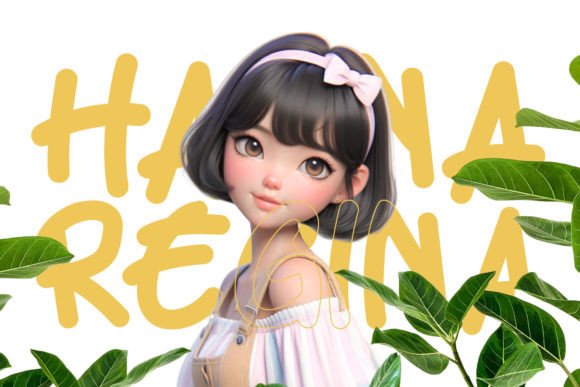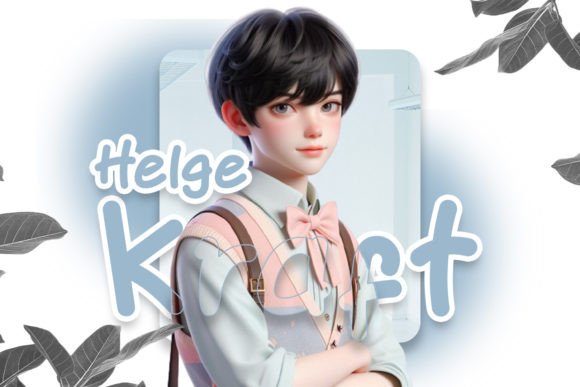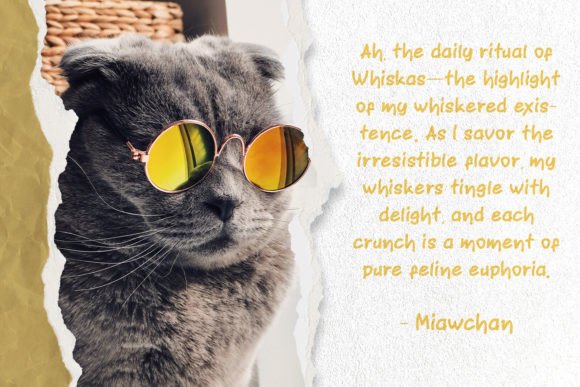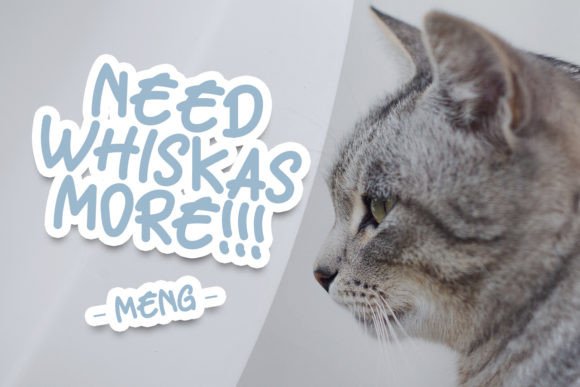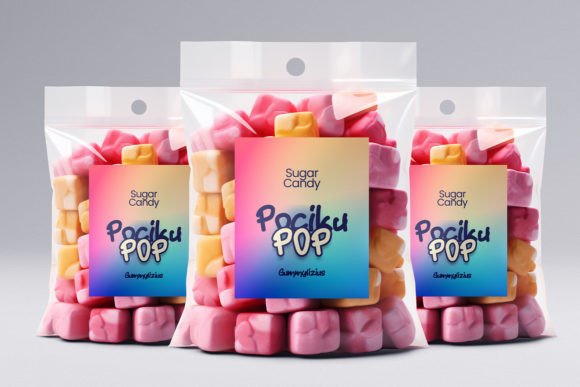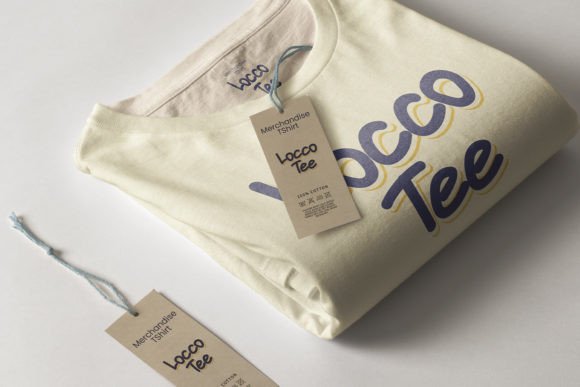
Discover the Charm of DaintyCute: A Playful Font for Every Creative Project
In the world of design, fonts play a crucial role in conveying the tone and personality of a brand or project. If you’re on the hunt for a typeface that exudes playfulness, charm, and creativity, look no further than DaintyCute. This delightful font is designed to bring a touch of whimsy to a wide range of applications, from event invitations and birthday cards to packaging products, logos, and more.
What is DaintyCute?
DaintyCute is a carefully crafted font that embodies a sense of playfulness and cheerfulness. Its unique design makes it perfect for projects that require a personal and friendly touch. Whether you’re a designer, crafty DIY enthusiast, or simply someone who appreciates beautiful typography, DaintyCute is sure to captivate your audience.
One of the standout features of DaintyCute is its incredible versatility. This font can be used for a multitude of purposes, including:
- Events: Add a touch of elegance and playfulness to your event invitations, banners, and decorations.
- Birthday Celebrations: Make your birthday cards, party invites, and decorations truly special with this delightful font.
- Ceremonies: Bring a sense of joy and festivity to wedding invitations, baby shower announcements, and other ceremonial materials.
- Packaging Products: Elevate your product packaging with a custom label or branding that showcases the DaintyCute font.
- Logo Type: Create a memorable logo for your business or brand that stands out with this unique font.
- Branding: Consistency is key in branding. Use DaintyCute across your marketing materials to create a cohesive and recognizable brand identity.
- T-Shirt Design: Design eye-catching t-shirts, hoodies, and other apparel that will make your customers smile.
- Website/Blog: Enhance your online presence with a font that adds a personal touch to your website or blog headers, titles, and more.
- Headline Magazine: Create captivating headlines and titles for your magazine, newsletter, or digital publication.
- Brochures: Make your brochures stand out with a font that combines professionalism with playfulness.
The DaintyCute Advantage
So, what sets DaintyCute apart from other fonts? Here are a few key advantages:
- Playful: DaintyCute is designed to bring a sense of fun and playfulness to your projects.
- Cheerful: Its cheerful design is sure to put a smile on your audience’s faces.
- Creative: The font’s unique style inspires creativity and can help your project stand out.
- Professional: Despite its playful nature, DaintyCute maintains a level of professionalism suitable for a wide range of applications.
- Unique Concept: This font offers a fresh and distinctive look that will set your project apart from the rest.
Why Choose DaintyCute?
Choosing the right font for your project can be daunting. With DaintyCute, you get a font that:
- Is easy to read and understand, making it perfect for body text and headlines.
- Is designed to work well in various sizes, from large banners to small business cards.
- Comes with a unique and memorable style that can help define your brand’s personality.
DaintyCute is more than just a font – it’s a design solution that brings a touch of playfulness and charm to any project. Its versatility, combined with its unique and cheerful design, makes it an excellent choice for designers, crafters, and anyone looking to add a personal touch to their work. Whether you’re creating event invitations, designing a logo, or crafting a brand identity, DaintyCute is sure to inspire your creativity and help your project stand out.